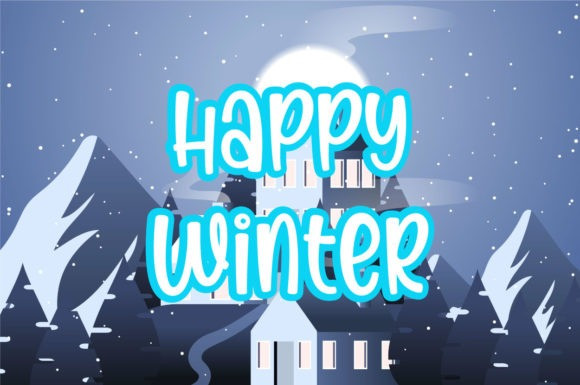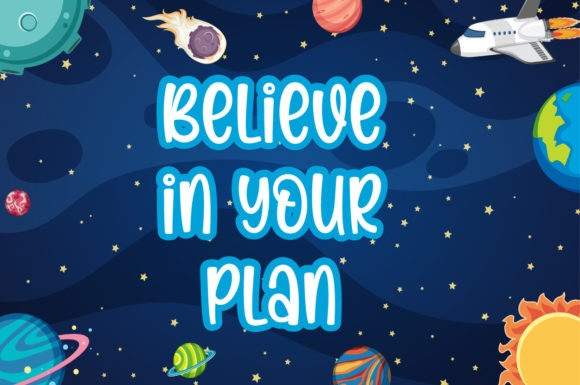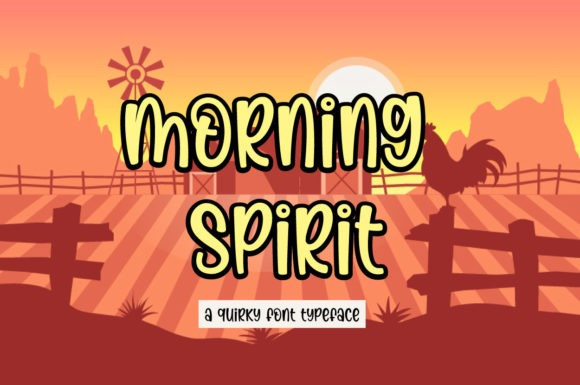
Morning Spirit Font
Morning Spirit Font is a simple and quirky handwritten font. Its friendly feel makes this font incredibly versatile, fitting a wide range of contexts. It looks stunning on thank you cards, quotes, greeting cards, logos, business cards, and other designs. Add it to your creative ideas, and notice how it makes them stand out!